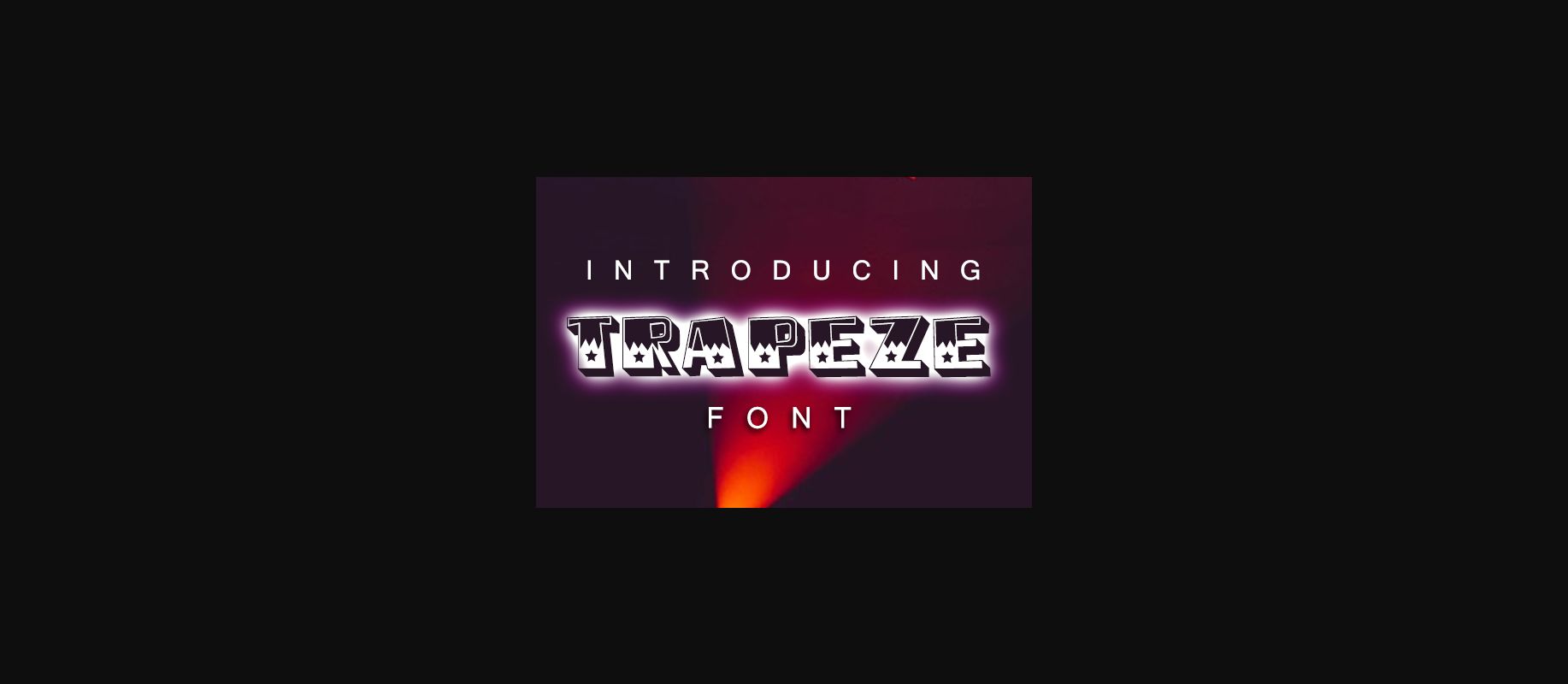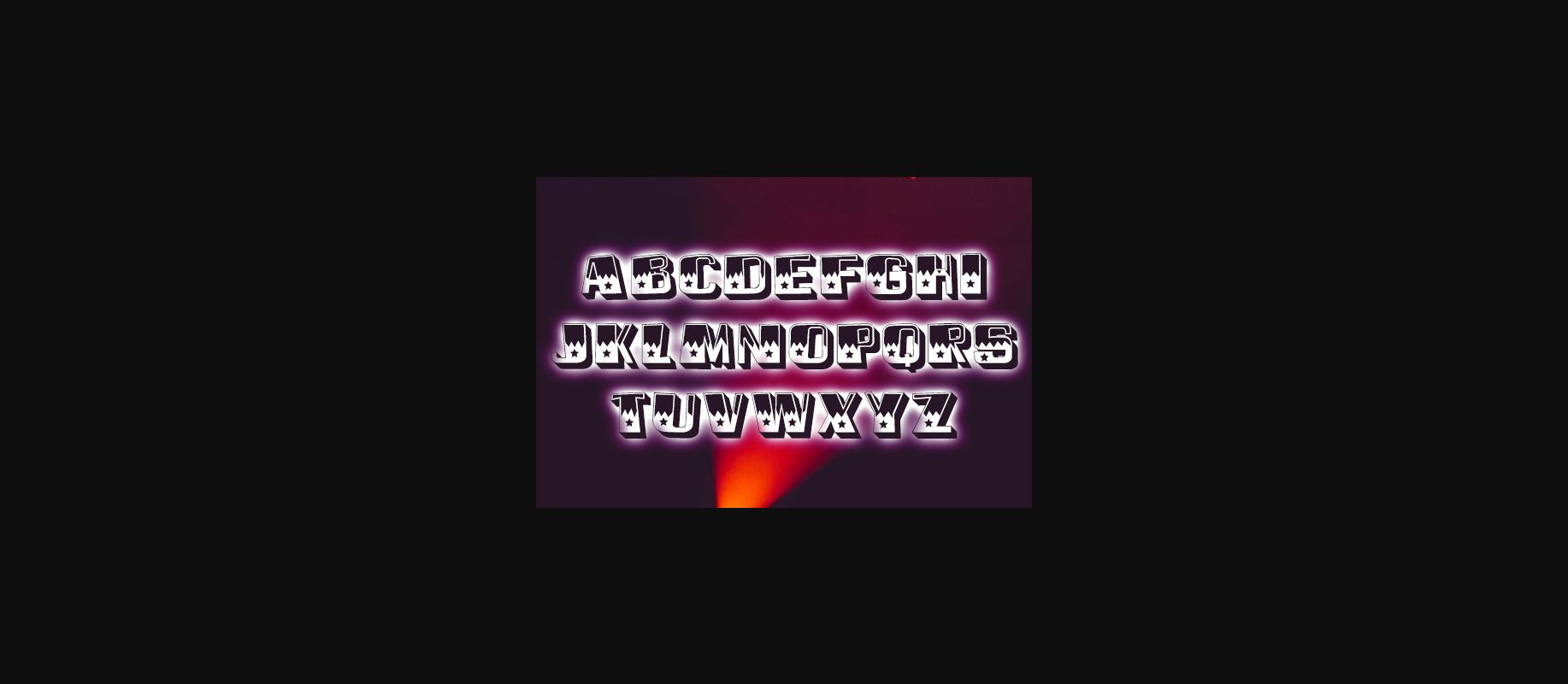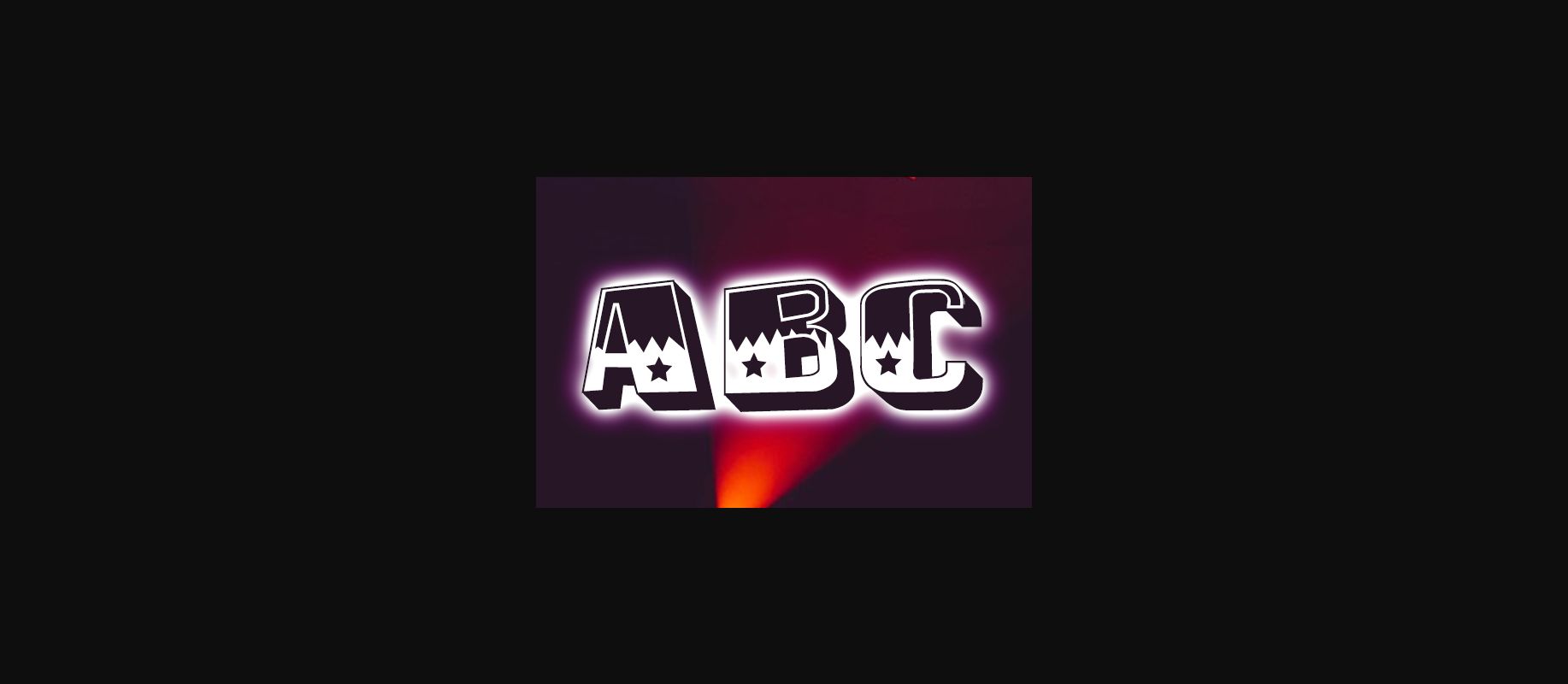
Trapeze Font
About Trapeze Font
Trapeze is an awesome decorative 3D font. Featuring a fun and incredibly unique style, this font is ideal for a wide spectrum of creations. Let your imagination run free!